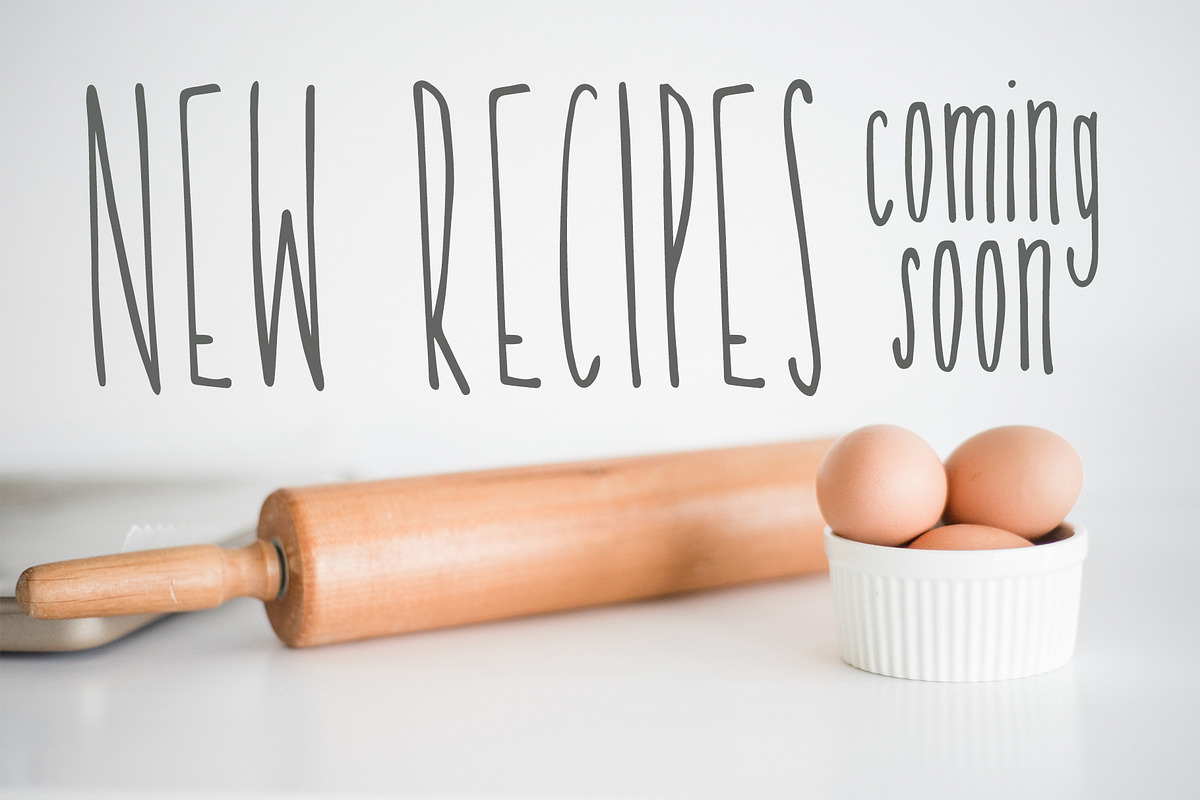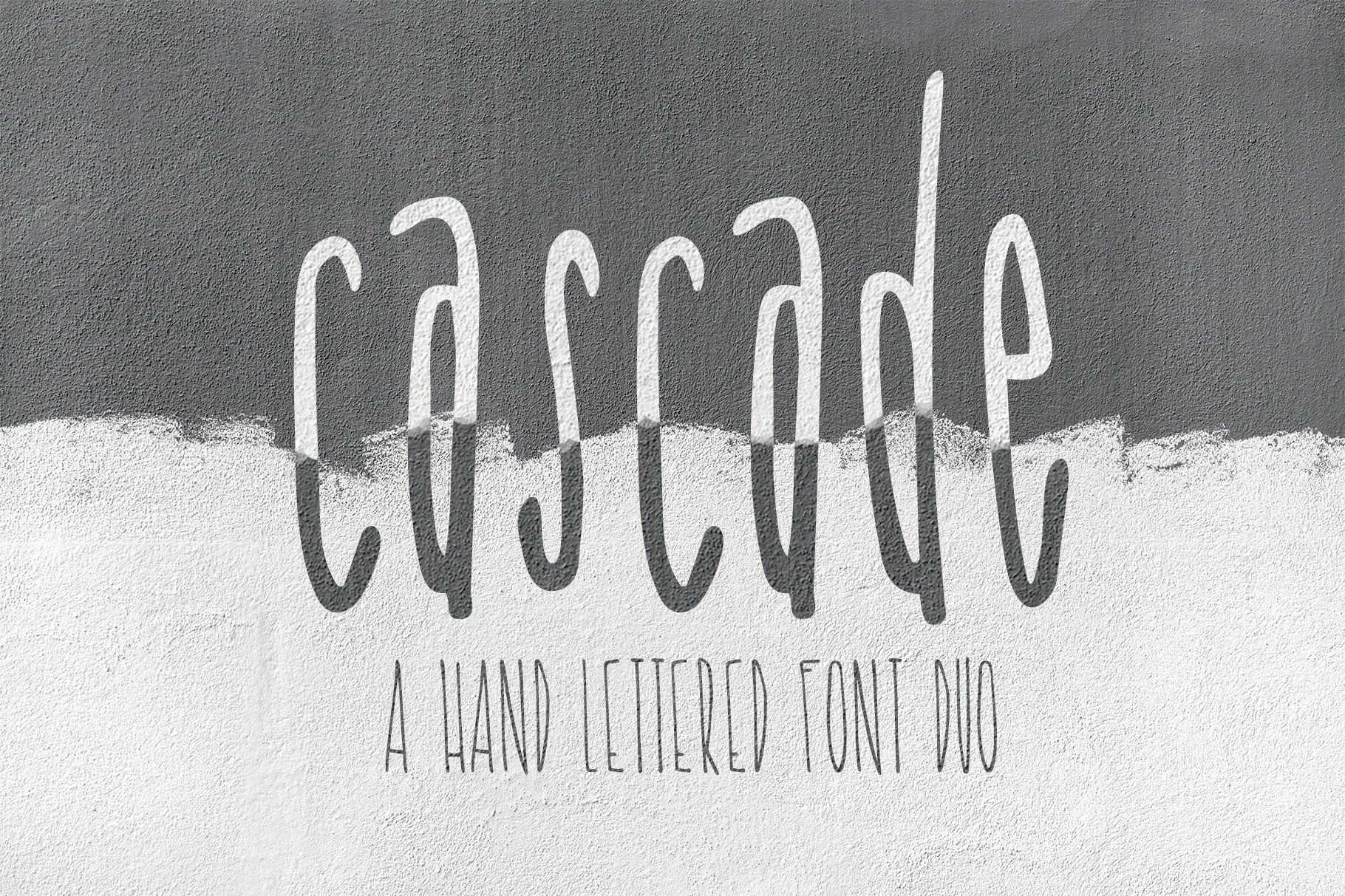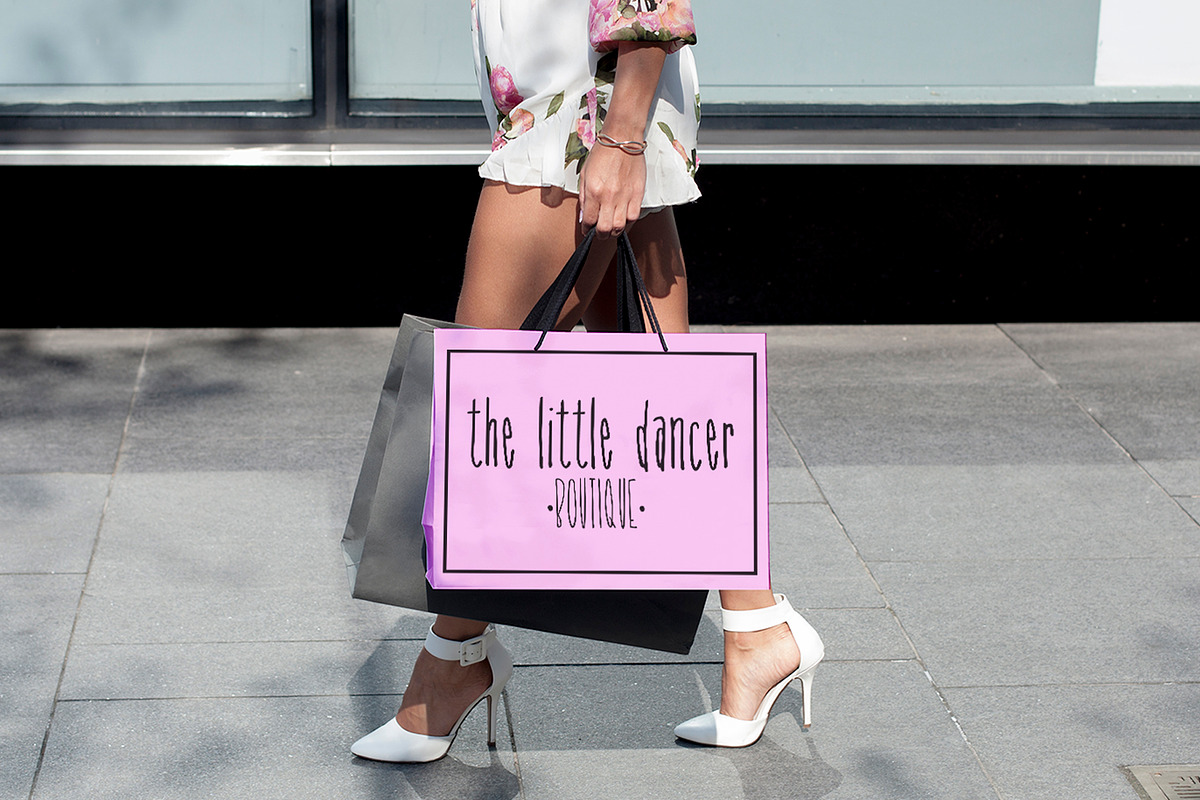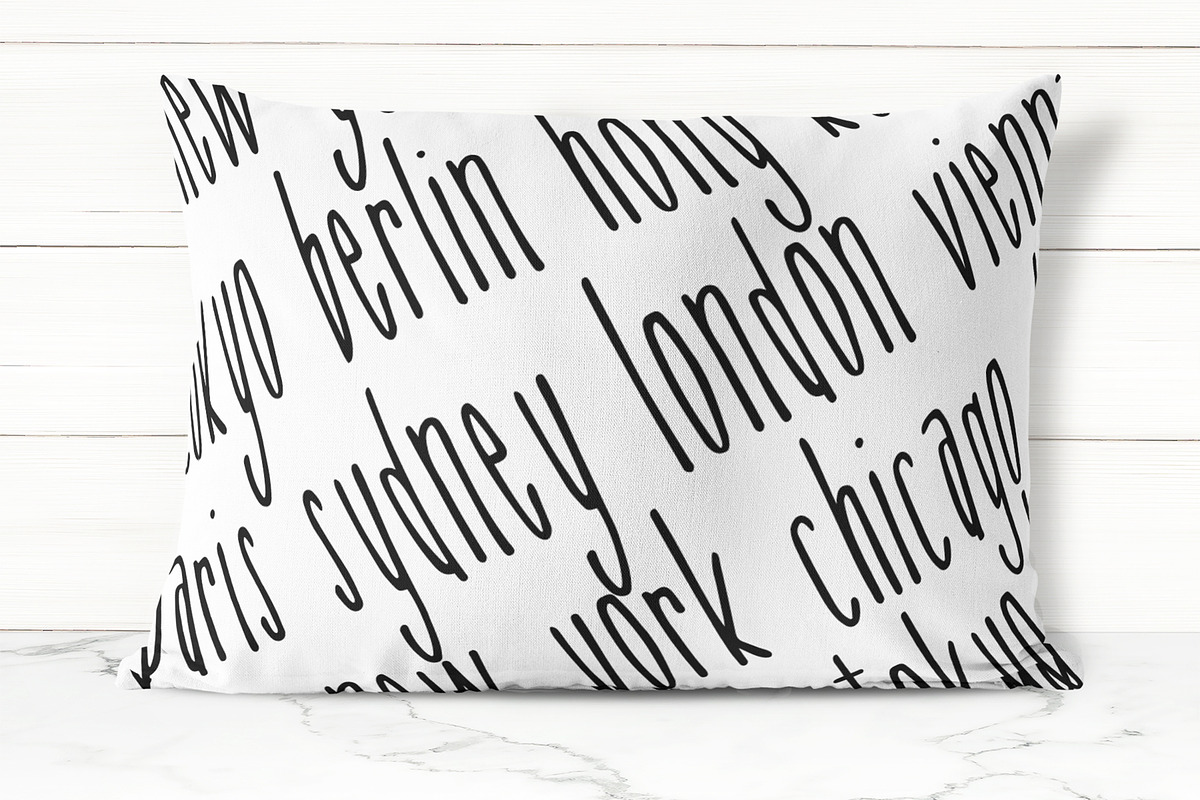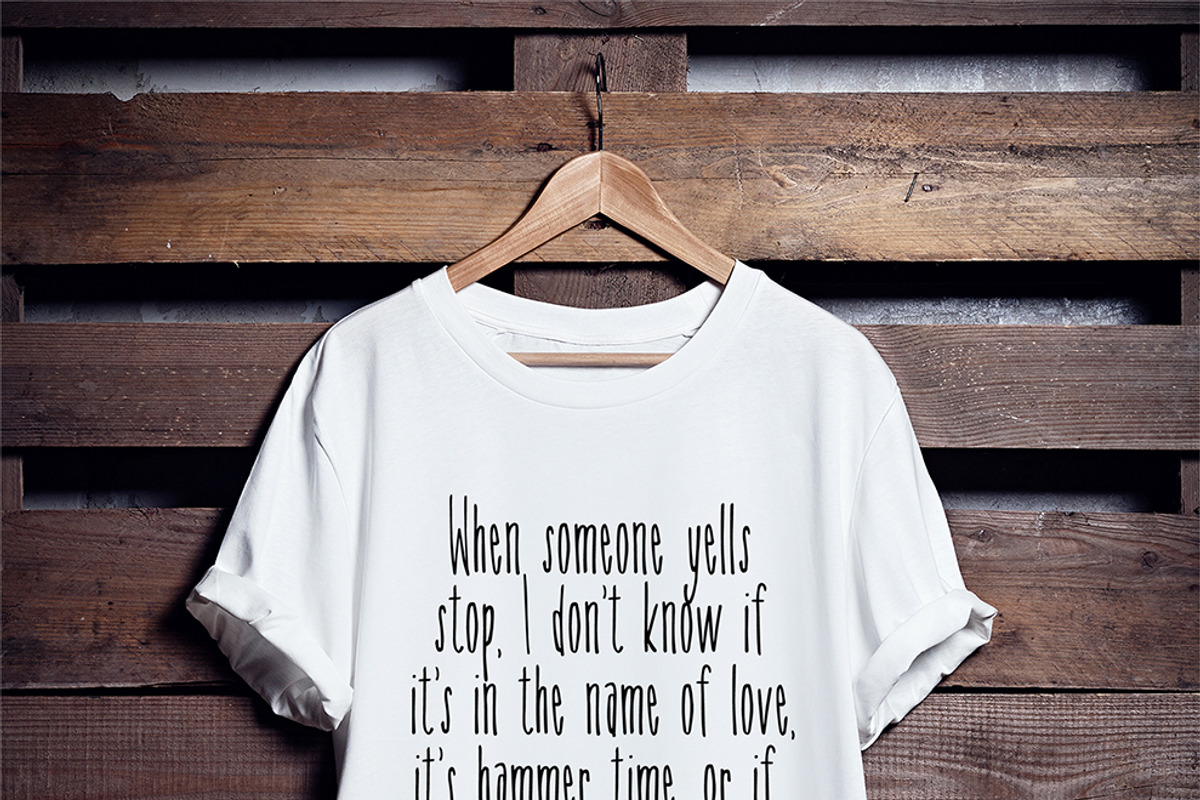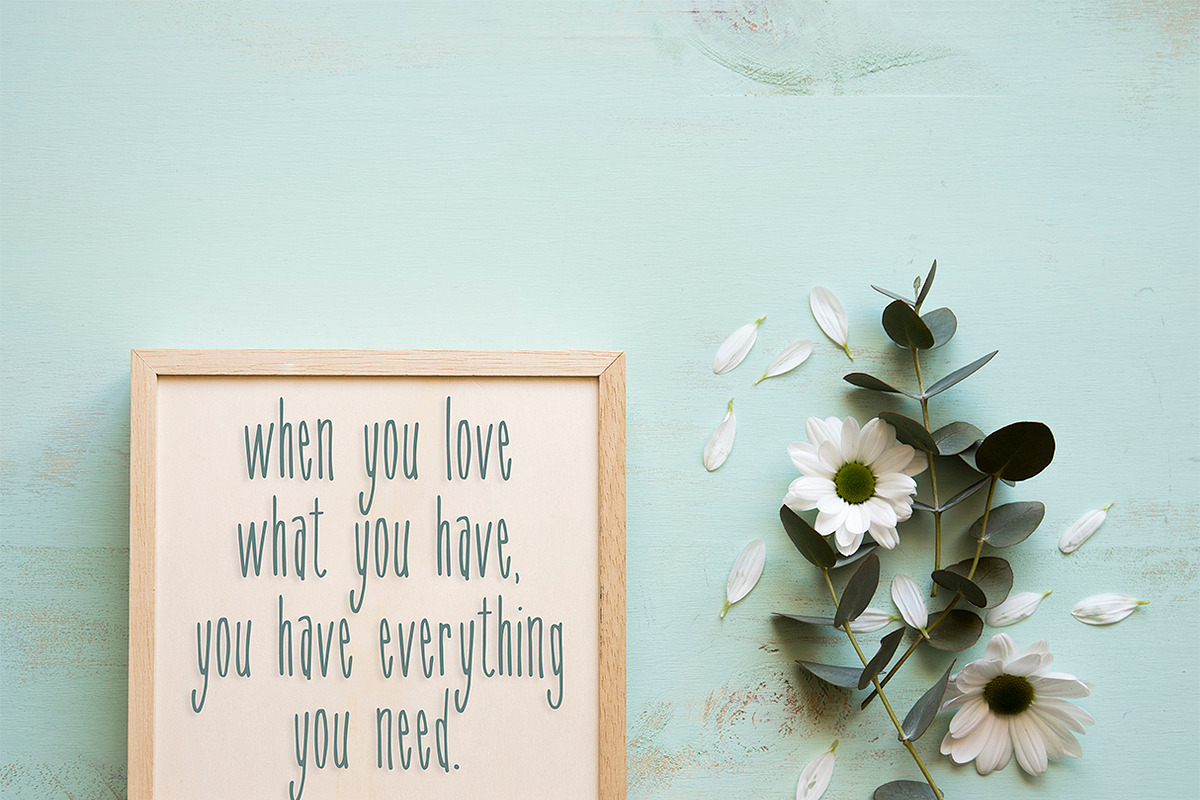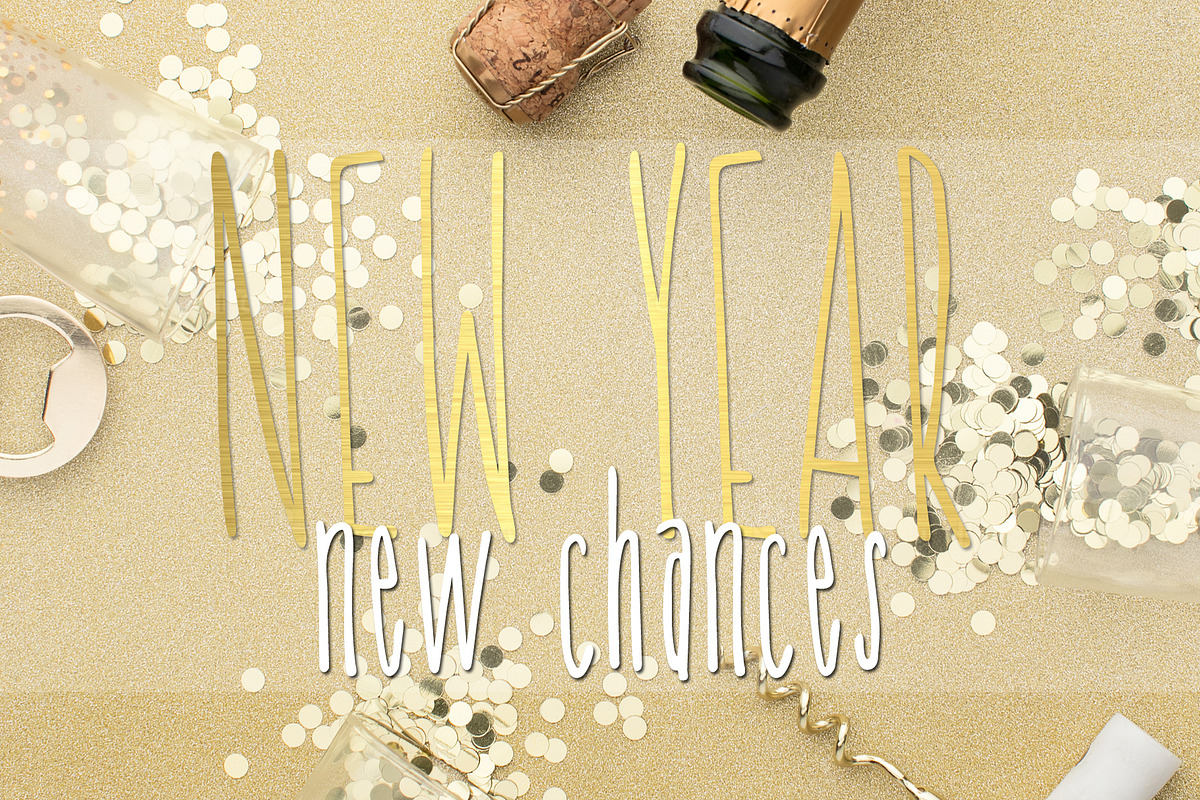
Cascade Font Duo
Cascade font is a fun and trendy handwritten font duo that will look great on your designs, logos, packaging, greeting cards, social media, prints, and more!
Use all CAPS for a tall and skinny font style! Use all lowercase for a charming handwritten look.